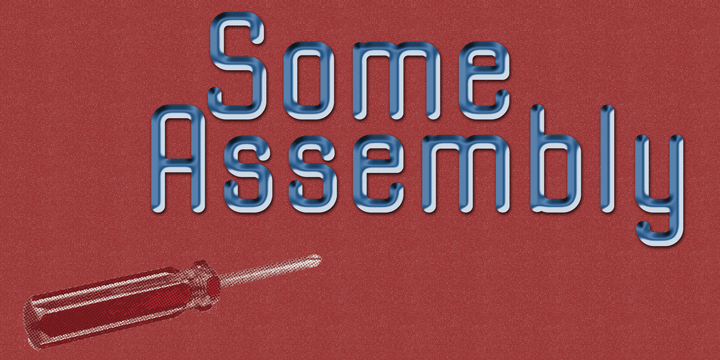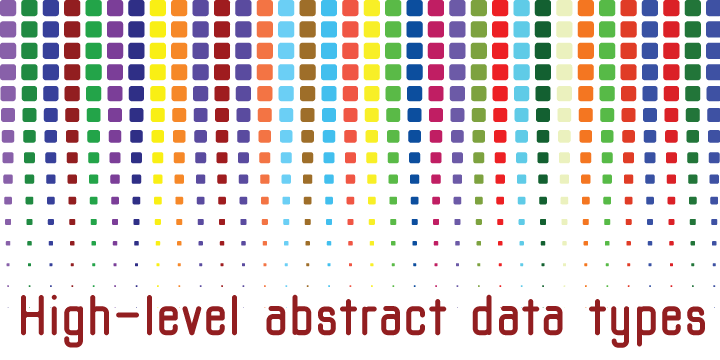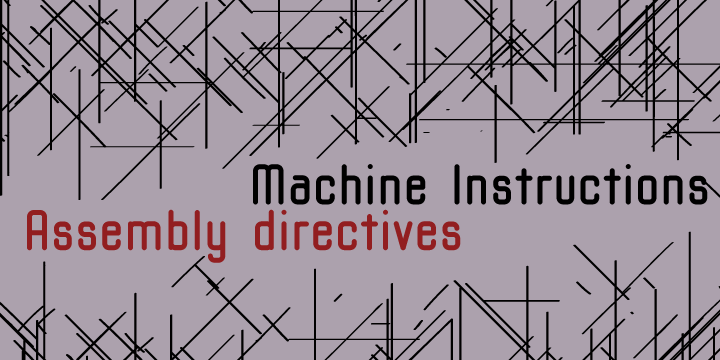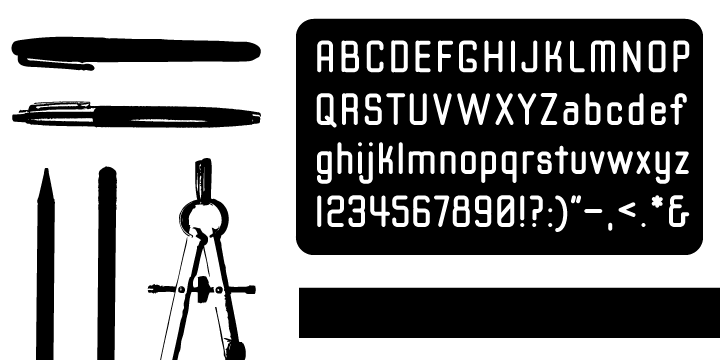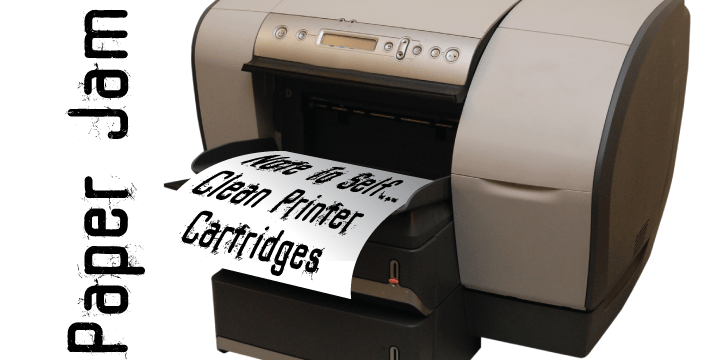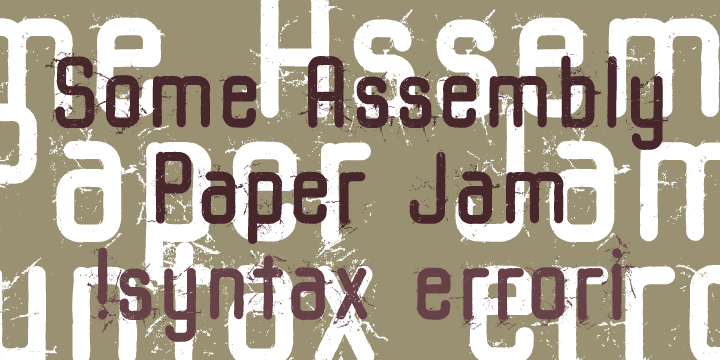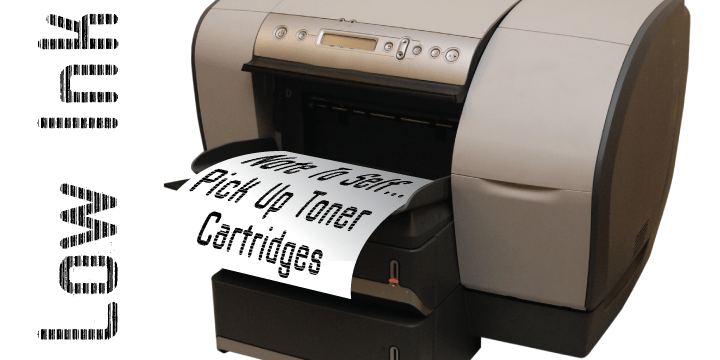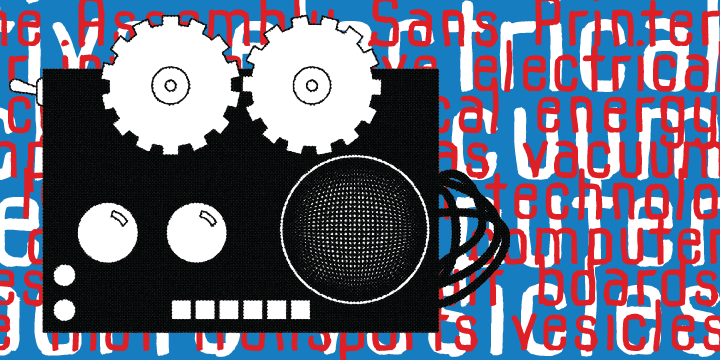
Some Assembly
Some Assembly is a sans serif printer font which ran into a few problems when it came time to print. Offered with a wide range of distressed styles. It is a pleasantly styled geometric face which is highly legible and its various styles provide dynamic alternatives.